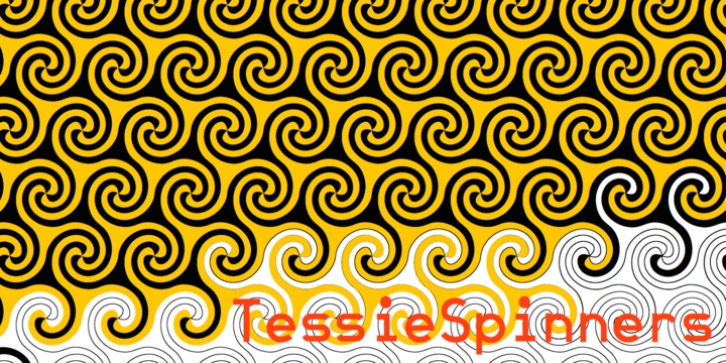
TessieSpinners was designed by Robert Schenk and published by Ingrimayne Type. TessieSpinners contains 2 styles and family package options.
A tessellation is a shape that can be used to completely fill the plane-simple examples are isosceles triangles, squares, and hexagons. Tessellation patterns are eye-catching and visually appealing, which is the reason that they have long been popular in a variety of decorative situations, such as quilting. Most of the shapes in TessieSpinners suggest a spinning motion. Most do not resemble real world objects.
The TessieSpinners fonts contain tessellation shapes that can be used to construct tessellation patterns. It has two styles, an outline style and a filled or black style. The black style can be used to construct colored patterns. To see how patterns can be constructed, see the "Samples" file here. Most or all of these shapes were discovered/created by the font designer during the past twenty years in the process of designing maze books, coloring books, and a book about tessellations.
(Earlier tessellation fonts from IngrimayneType, the TessieDingies fonts, lack a black or filled version so cannot do colored patterns. Make sure the leading is the same as font size or the rows will not line up.)